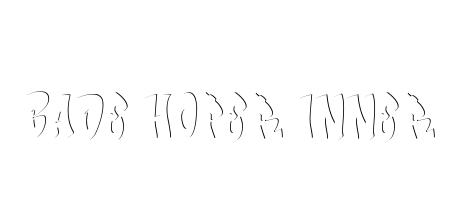
Bade Hoper inner
Bade Hoper Inner whispers secrets in a language of elegant curves and subtle angles. Its playful strokes dance across the page, creating a sense of whimsical mystery. The font’s airy yet grounded feel evokes both childlike wonder and sophisticated charm, perfect for titles and short, intriguing text.